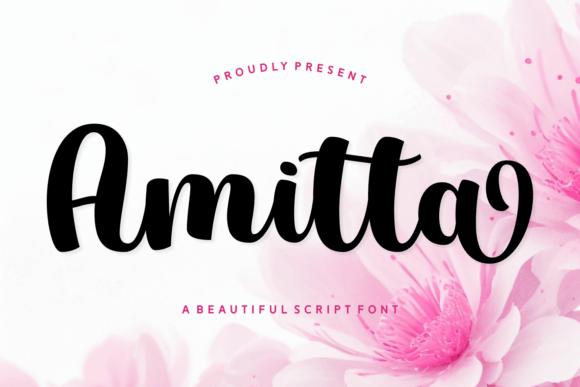
The Elegance of Amitta Font: A Designer’s Delight
I still remember the time I was working on a wedding invitation project, and my client asked for a font that exuded elegance and sophistication. I scoured the internet, tried out numerous fonts, but nothing seemed to fit the bill. That was until I stumbled upon the Amitta font. Its smooth curves and stylish flow instantly caught my attention, and I knew I had found the perfect fit. In this article, I’ll share my experience with the Amitta font, its features, and how to make the most of it in your designs.
An Honest Review of Amitta Font
What I Love About Amitta Font
- ✨ Elegant and sophisticated: Amitta font is perfect for designing invitations, branding, and product packaging that requires a touch of luxury.
- ✅ Smooth curves and stylish flow: The font’s flowing curves make it easy to read and give it a beautiful, hand-written feel.
- 🎨 Versatile: Amitta font can be used for a variety of design projects, from formal events to business branding.
While Amitta font is an excellent choice for many design projects, there are a few things to keep in mind:
- 🤔 Limited use for body text: Due to its elegant and cursive nature, Amitta font may not be the best choice for lengthy body text. It’s better suited for headings, titles, and short paragraphs.
- ⚠️ Requires attention to spacing: As with any script font, it’s essential to pay attention to spacing to ensure that the text doesn’t look too crowded or awkward.
The Backstory of Amitta Font
Amitta font was designed with the intention of creating a elegant and sophisticated script font that would exude luxury and charm. The designer aimed to create a font that would be perfect for formal events, luxury branding, and high-end packaging. With its smooth curves and stylish flow, Amitta font has become a popular choice among designers and crafters.
Q: What type of projects is Amitta font best suited for?
A: Amitta font is perfect for designing invitations, branding, and product packaging that requires a touch of luxury and elegance.
Q: Can I use Amitta font for body text?
A: While Amitta font can be used for short paragraphs, it’s not recommended for lengthy body text due to its elegant and cursive nature.
Q: Does Amitta font support OpenType features?
A: Yes, Amitta font supports OpenType features, such as Stylistic Alternates, Swashes, and Glyphs, which can be accessed in compatible design software.
Q: Is Amitta font suitable for digital use?
A: Yes, Amitta font is suitable for digital use, including social media graphics, website headers, and email marketing campaigns.